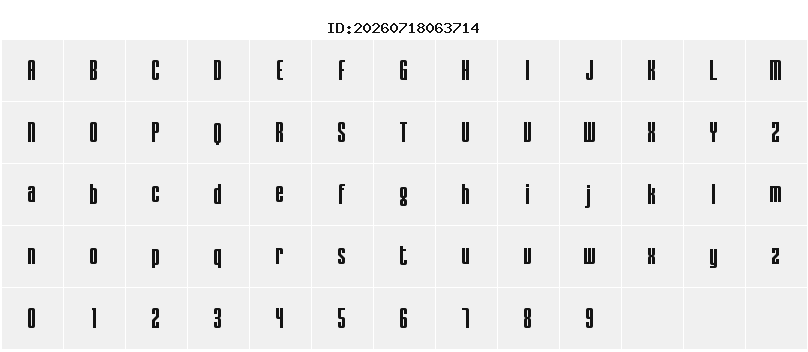
Chesterfield Preview
• Font Name: Chesterfield
• Font ID: FontStruct Chesterfield
• Full Font Name: Chesterfield Regular
• PostScript Name: Chesterfield
• Character Count: 164
• Designer: afrojet
• Description: This font was created using FontStruct (http://fontstruct.fontshop.com)
About Chesterfield.ttf
Chesterfield.ttf is a modern, elegant sans-serif font designed for ultimate readability and visual harmony. Perfect for branding, headlines, web design, and print materials.